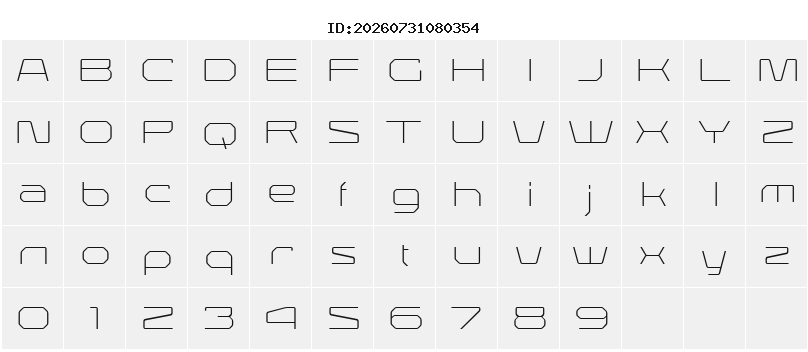
Lineavec Preview
• Font Name: Lineavec
• Designer: Ray Larabie
About Lineavec.ttf
Lineavec.ttf is a modern, elegant sans-serif font designed for ultimate readability and visual harmony. Perfect for branding, headlines, web design, and print materials.